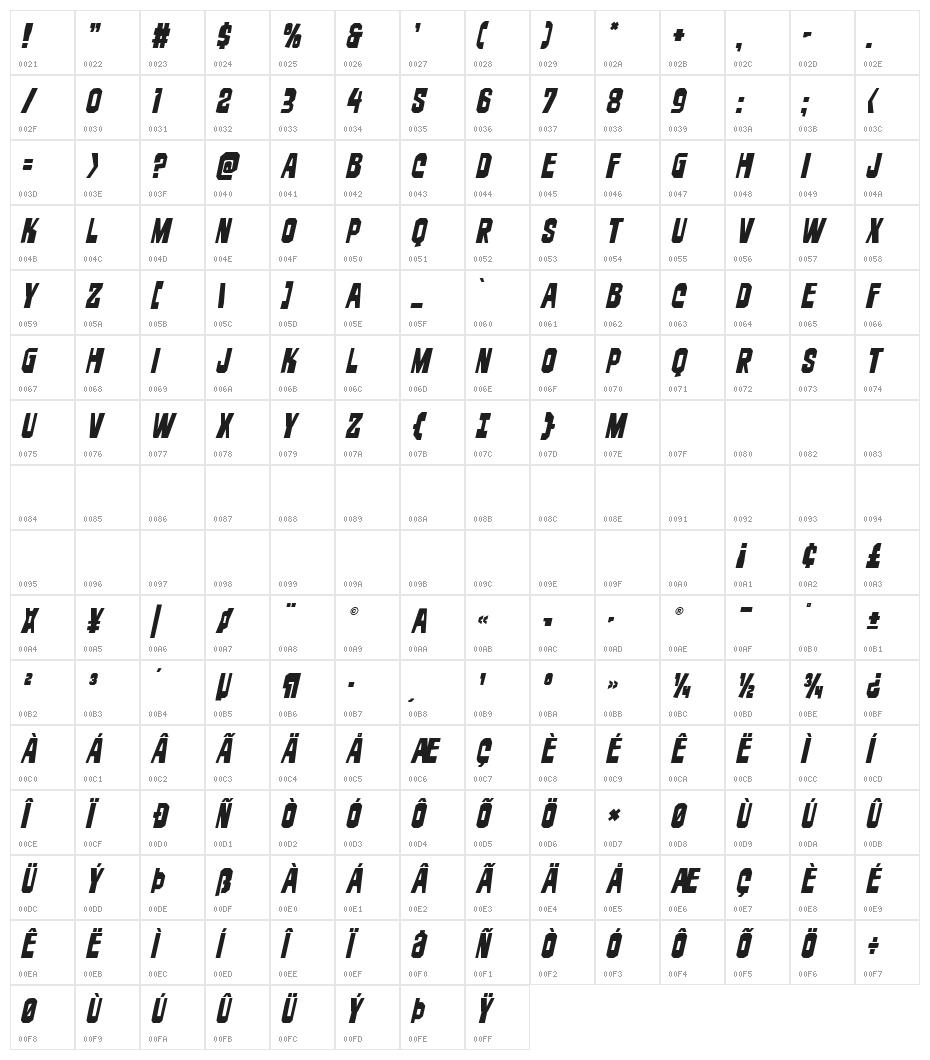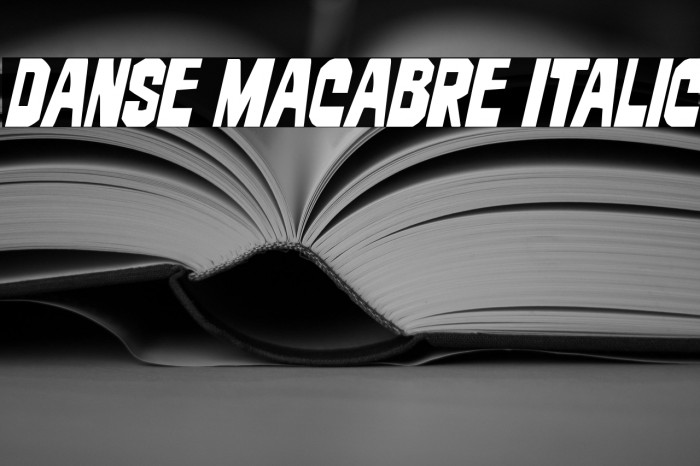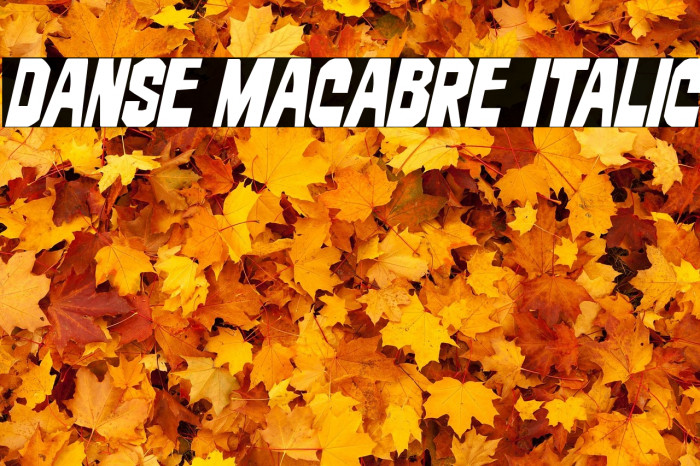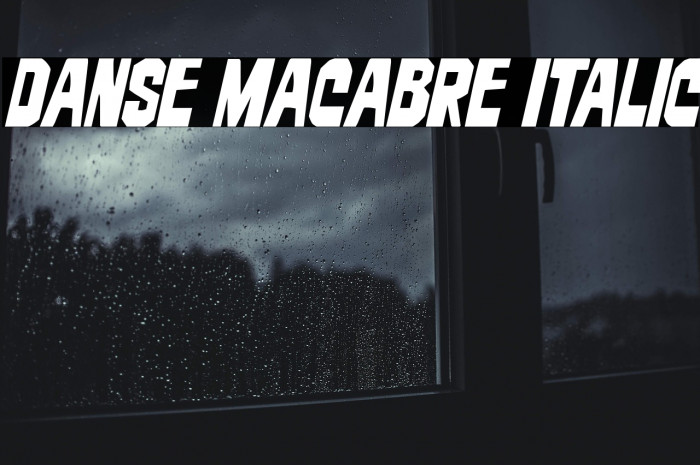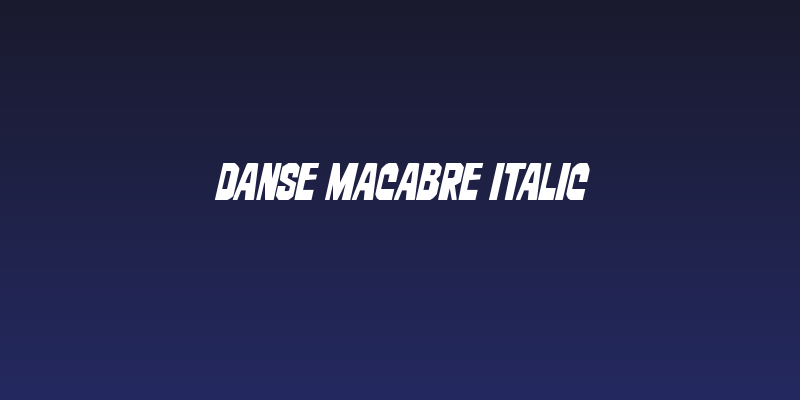
Danse Macabre Italic Font
Danse Macabre Italic Description
This font exudes a bold and dynamic presence with its italicized, angular design. The characters are sharply defined, featuring a strong slant that adds a sense of motion and energy. The uppercase letters are particularly striking, with a geometric style that emphasizes their boldness. The numbers and special characters maintain this robust aesthetic, ensuring consistency across all glyphs. The font's thick strokes and sharp edges make it highly legible, even at smaller sizes, while the italic slant adds a unique flair that sets it apart from more traditional typefaces.